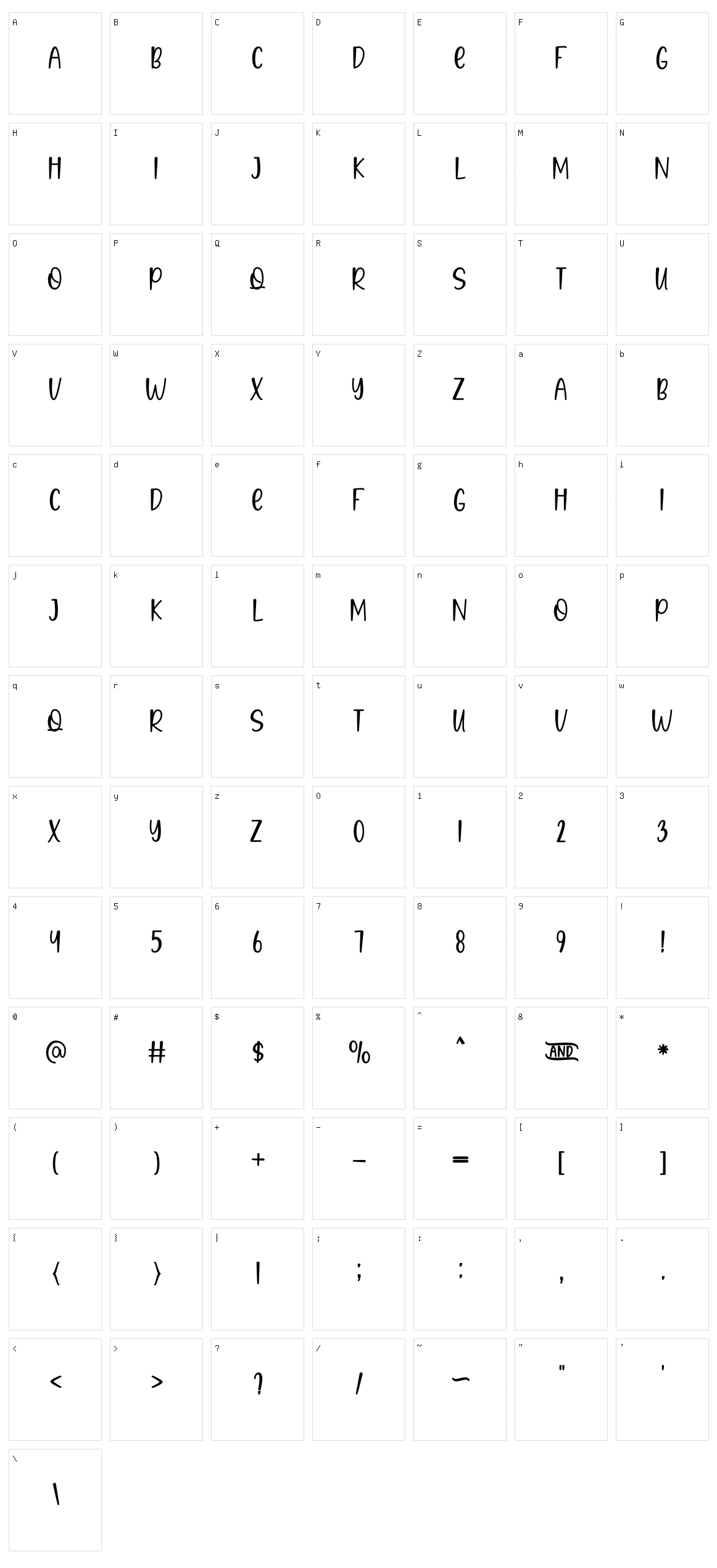
The free font Marie Clairie is carefully designed by Fillo Graphic, showcasing a thoughtful balance of creativity and usability and falls under the Script font style. When you download the ZIP file, it contains only 313.88 KB of font files, making it lightweight and quick to download. Please review the license details below to understand permitted usage and distribution rights. If license information is not available, we recommend using this font for personal projects only or contacting the author directly for commercial usage permissions.